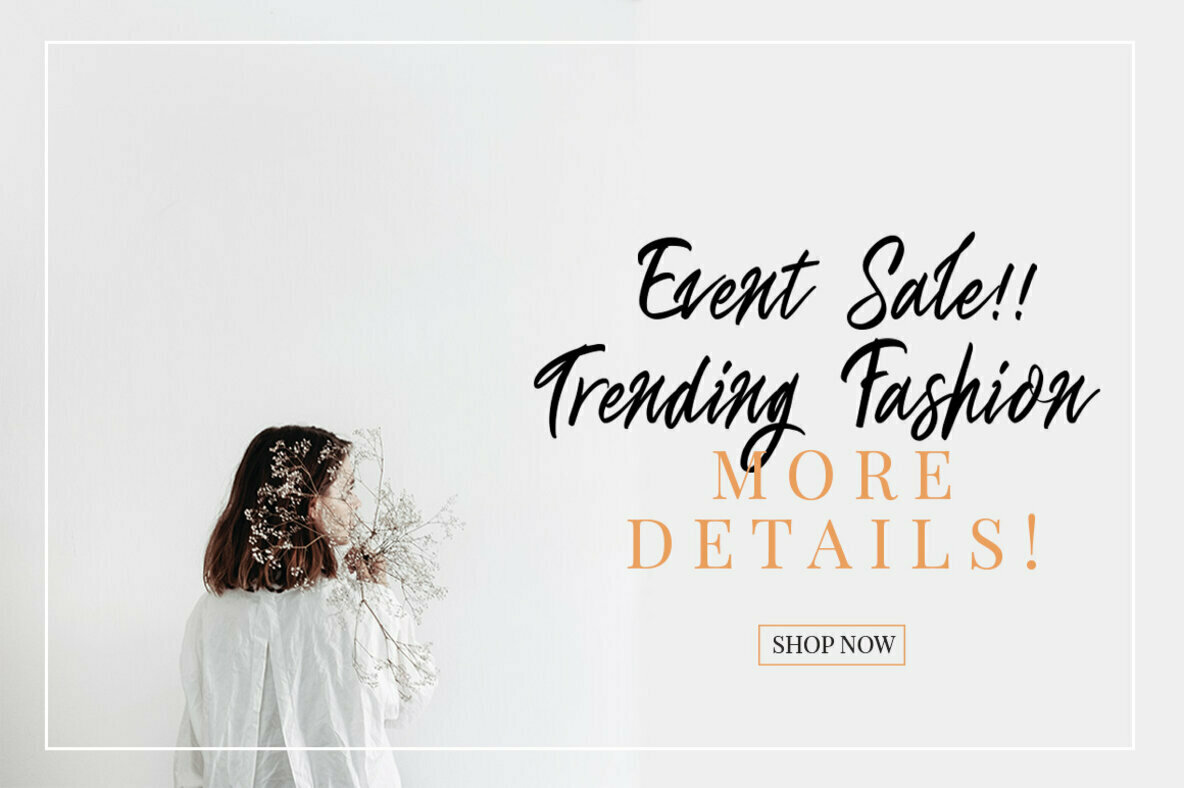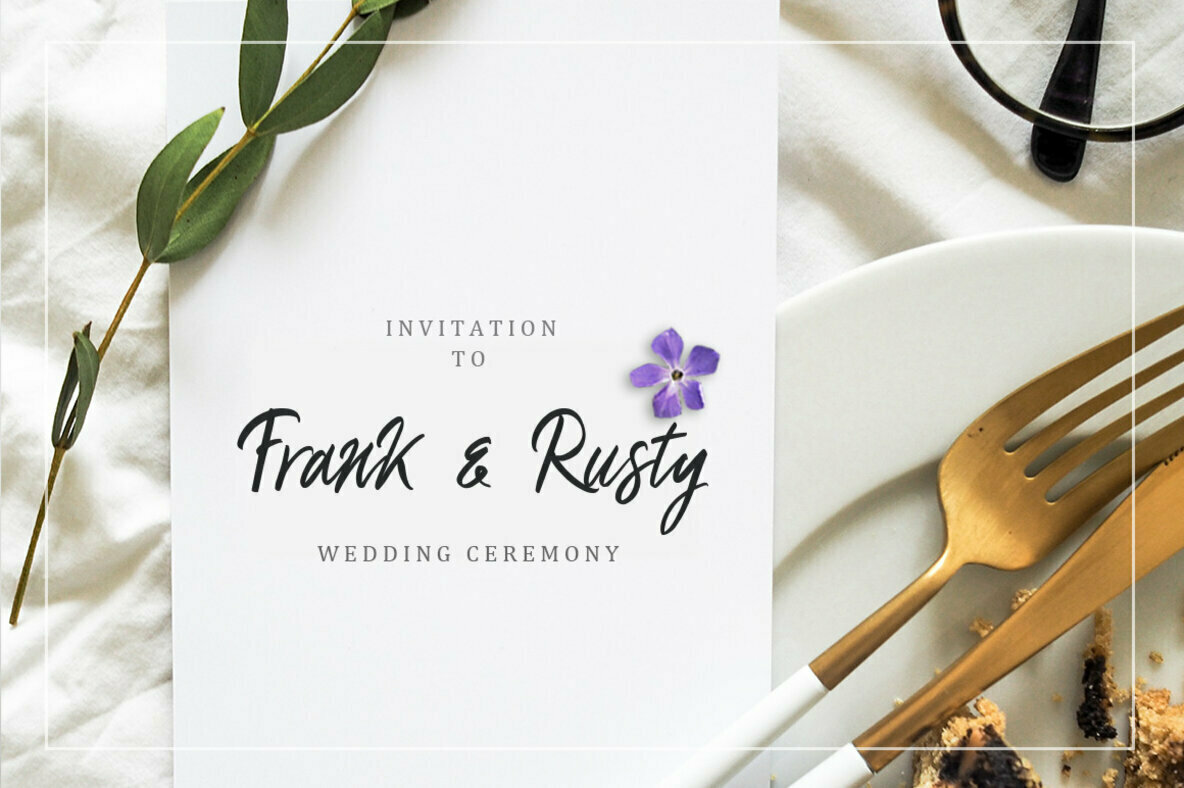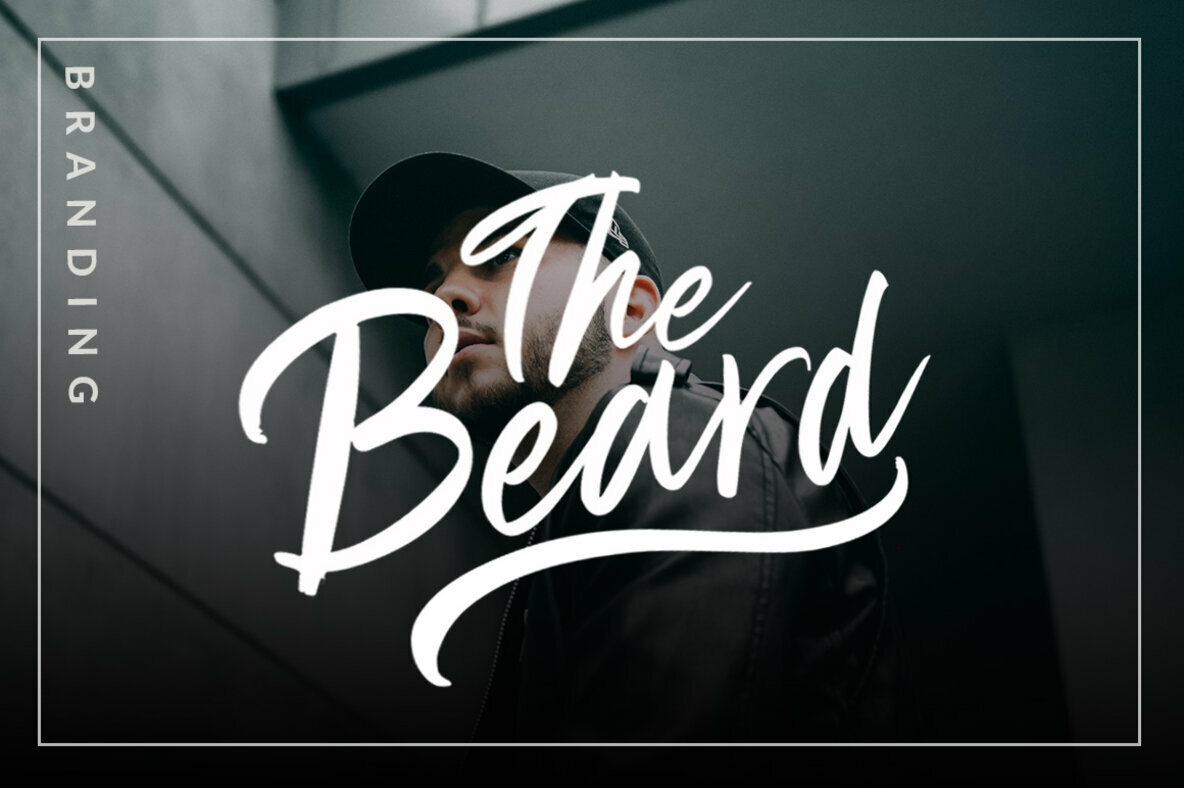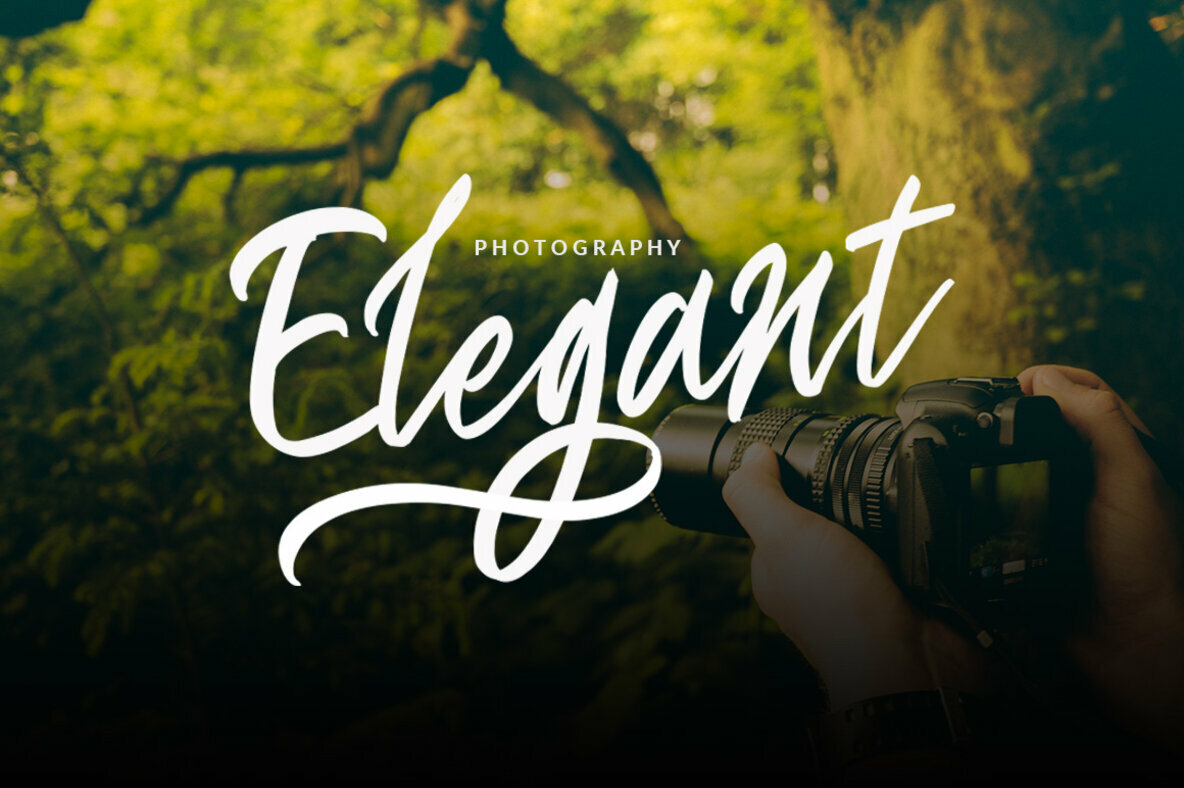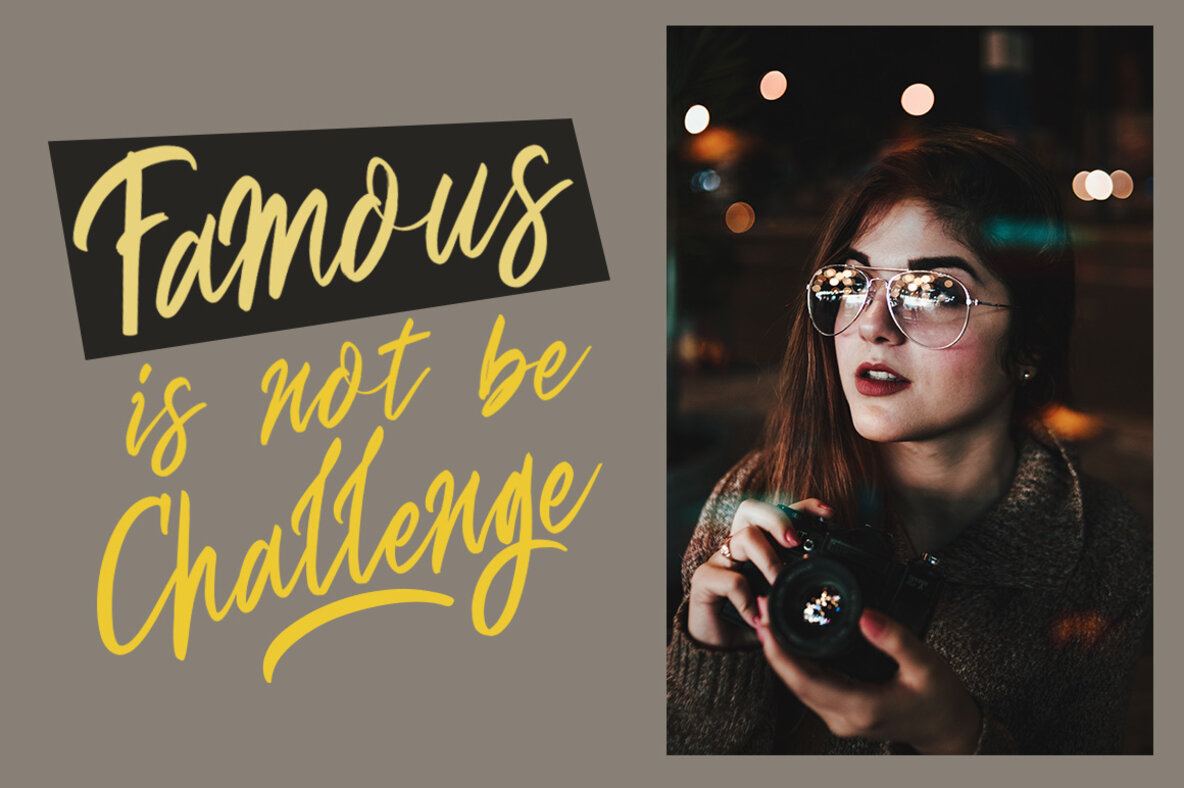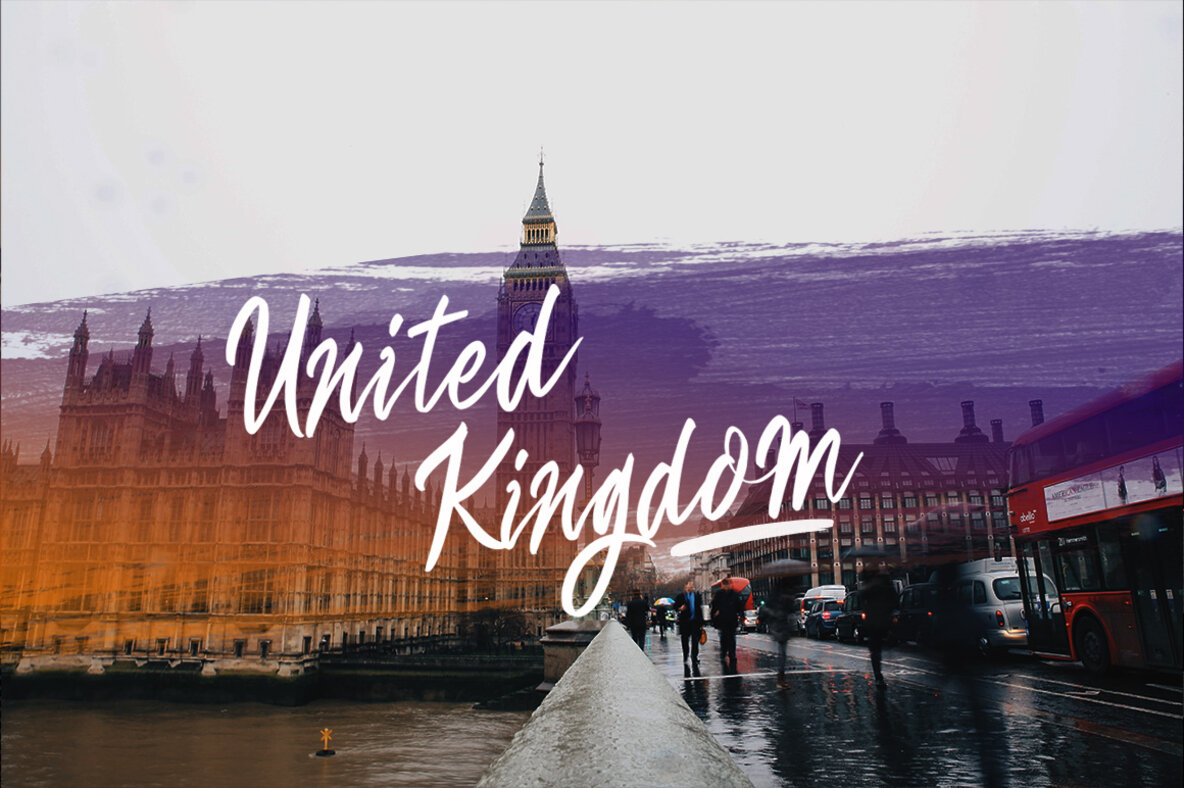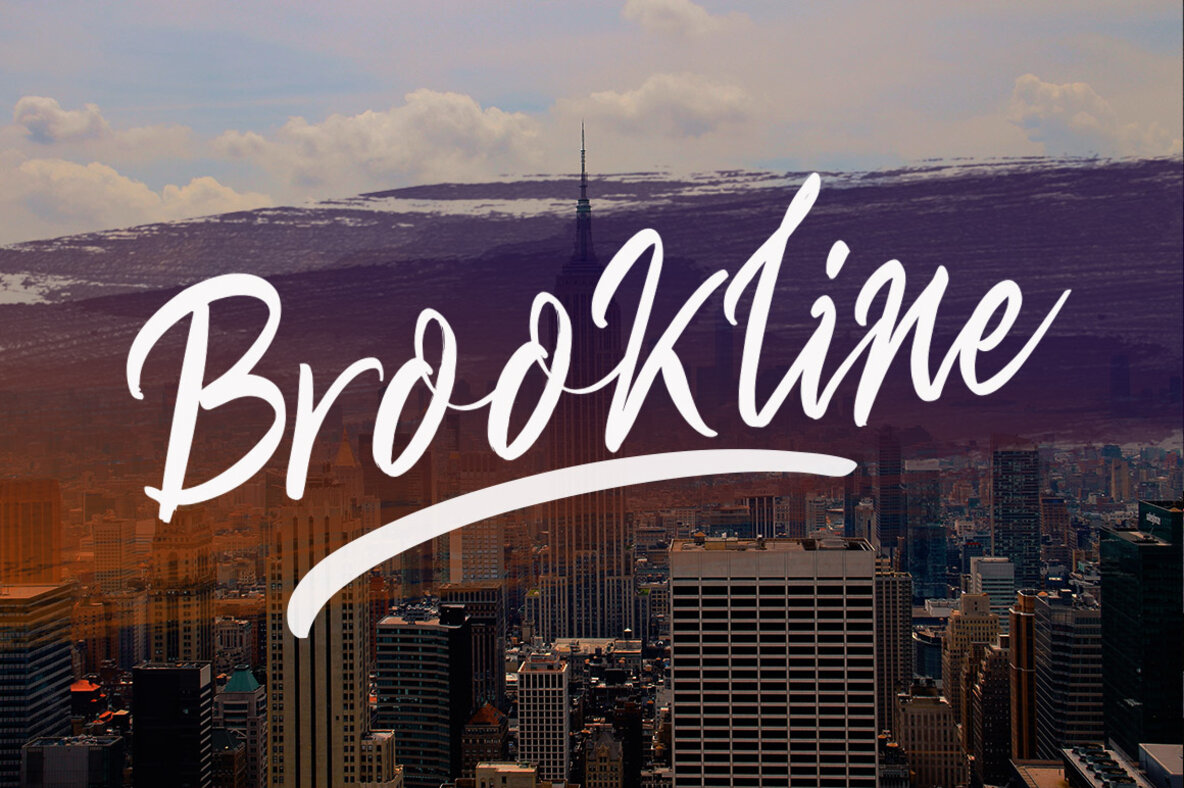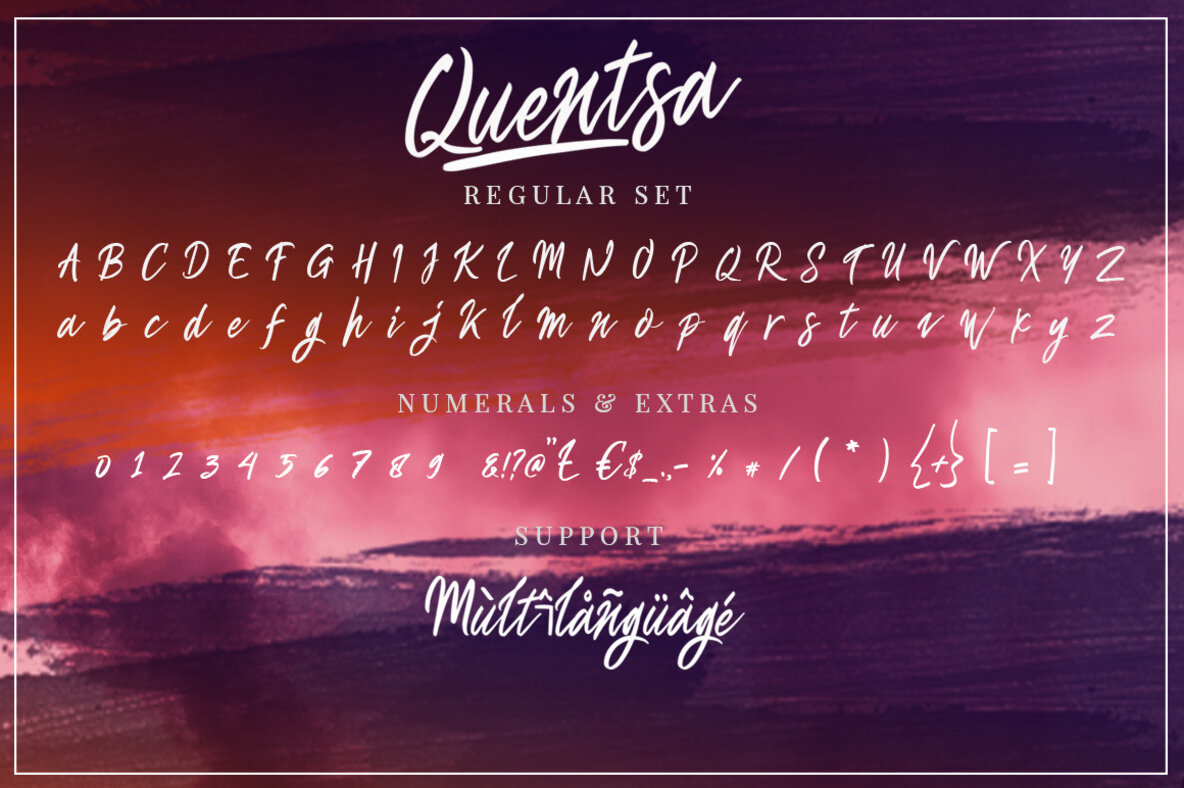
Quensta Script Font
Quentsa Script
Quentsa Swash
Infuse your projects with a breath of elegance using Quensta Script. Designed with a fresh and contemporary calligraphy style, this typeface glows with sophistication in every curve. Ideal for a myriad of applications, Quensta Script adds an exquisite touch to greeting cards, branding ventures, and creative expressions alike.Quensta Script: Modern Calligraphy for Elegant Designs